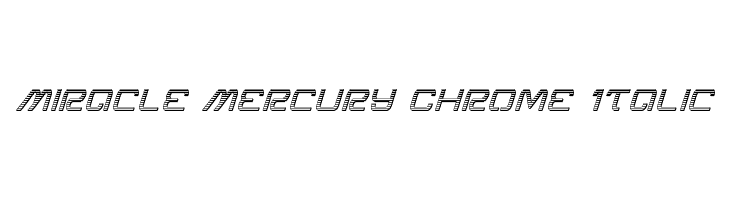
A bold, energetic script font with sweeping strokes and a lively style.
A playful, handwritten font with rounded, consistent strokes and a whimsical style.
A bold, italicized font with a futuristic halftone effect and angular design.
A bold, playful font with a whimsical, hand-drawn style.
A bold, geometric font with a modern and futuristic style.
A bold, distressed font with a rugged, edgy appearance.
Elegant, handwritten script with flowing, connected strokes.
An elegant, flowing script font with ornate uppercase and smooth lowercase letters.
An elegant script font with fluid, cursive strokes and sophisticated design.